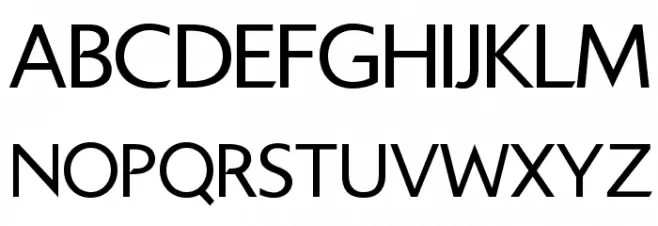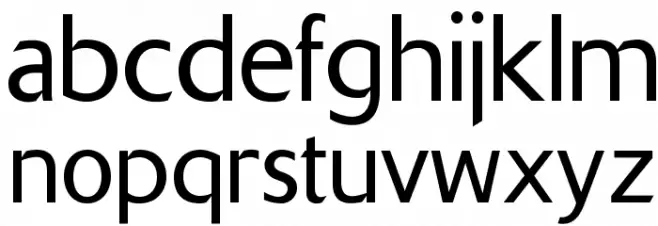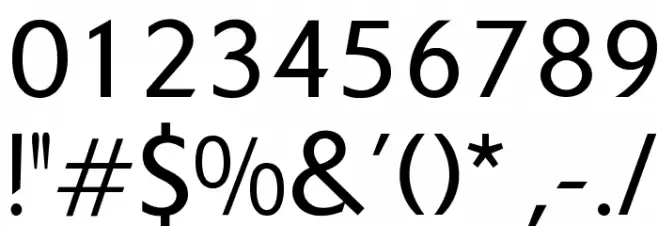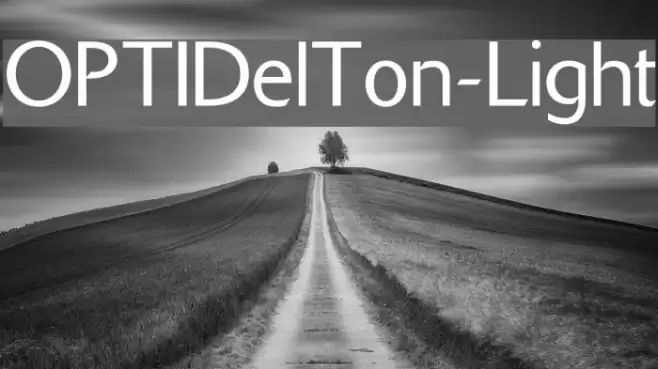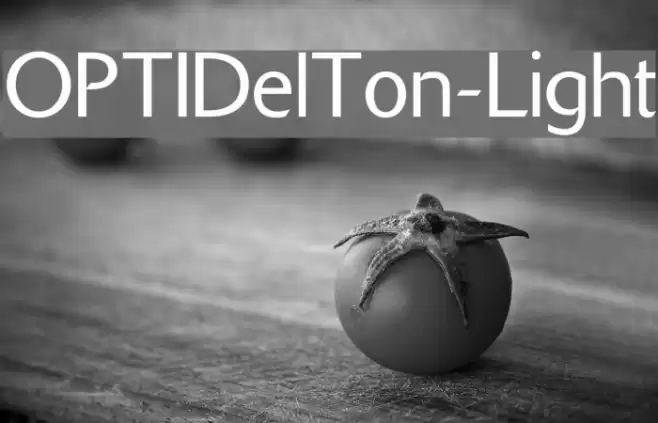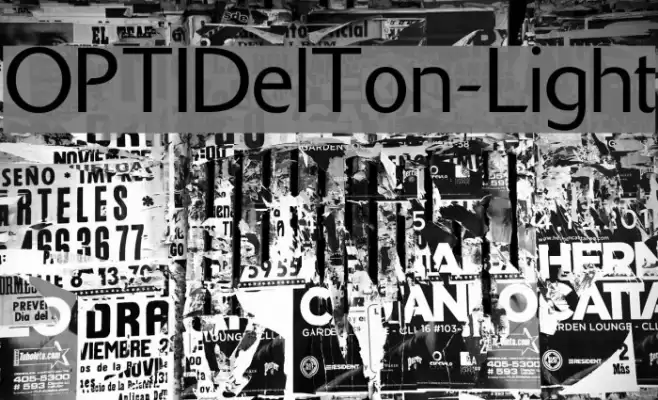
OPTIDelTon-Light
This typeface features a clean and modern aesthetic with smooth curves and a balanced structure. The characters are evenly spaced, providing excellent readability. The uppercase letters are bold and assertive, while the lowercase letters maintain a friendly and approachable feel. The numerals are clear and distinct, making them suitable for various applications. Special characters are well-integrated, ensuring consistency across different uses. The overall design is versatile, making it ideal for both digital and print media.
A modern, clean typeface with balanced structure and excellent readability.
- Proposed Projects: Ideal for branding, web design, advertising, and editorial projects.
- Weight: Light